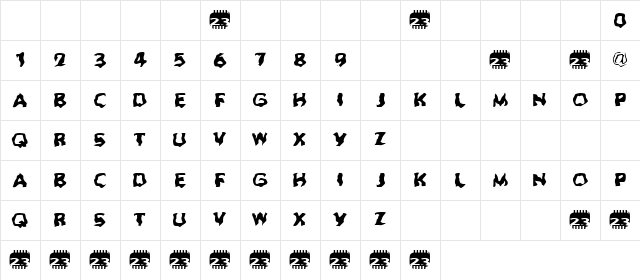
Zone23_Dreamtime 623 Normal
Design Context for Zone23_Dreamtime 623
Zone23_Dreamtime 623 is a composed and adaptable typeface that performs quietly and consistently across a wide range of design contexts.